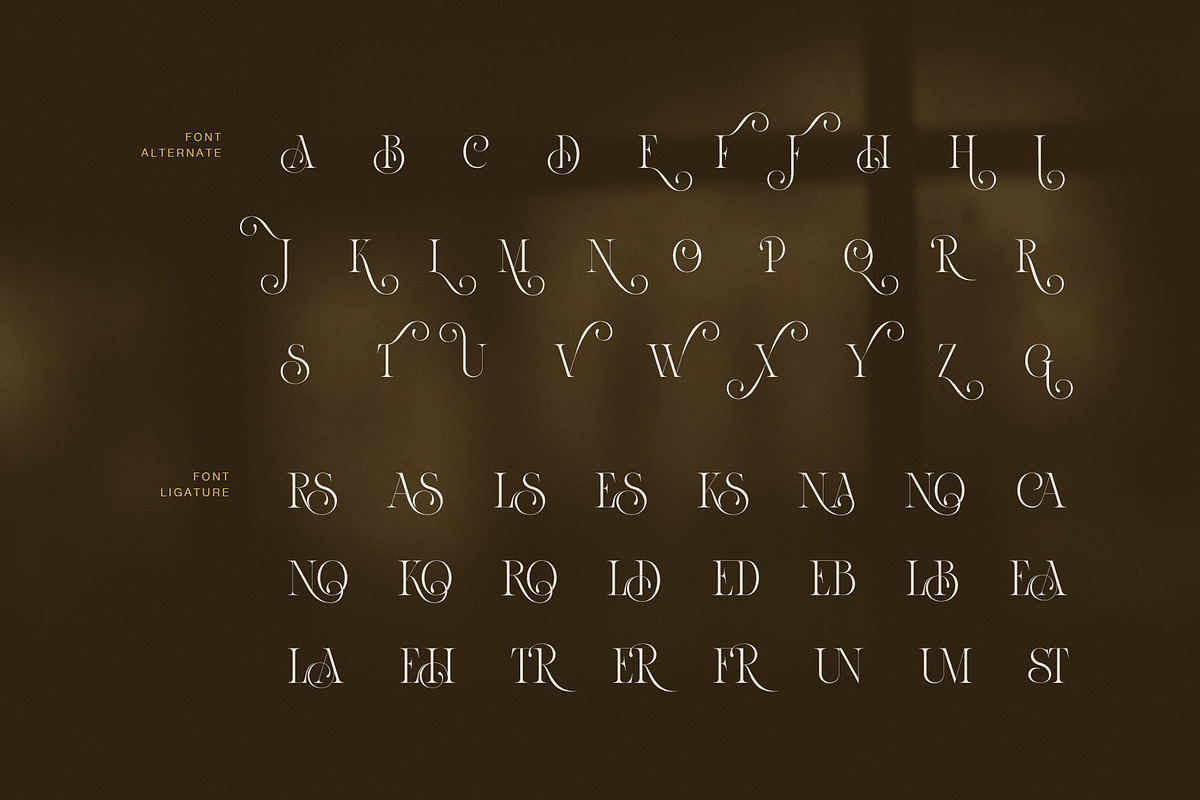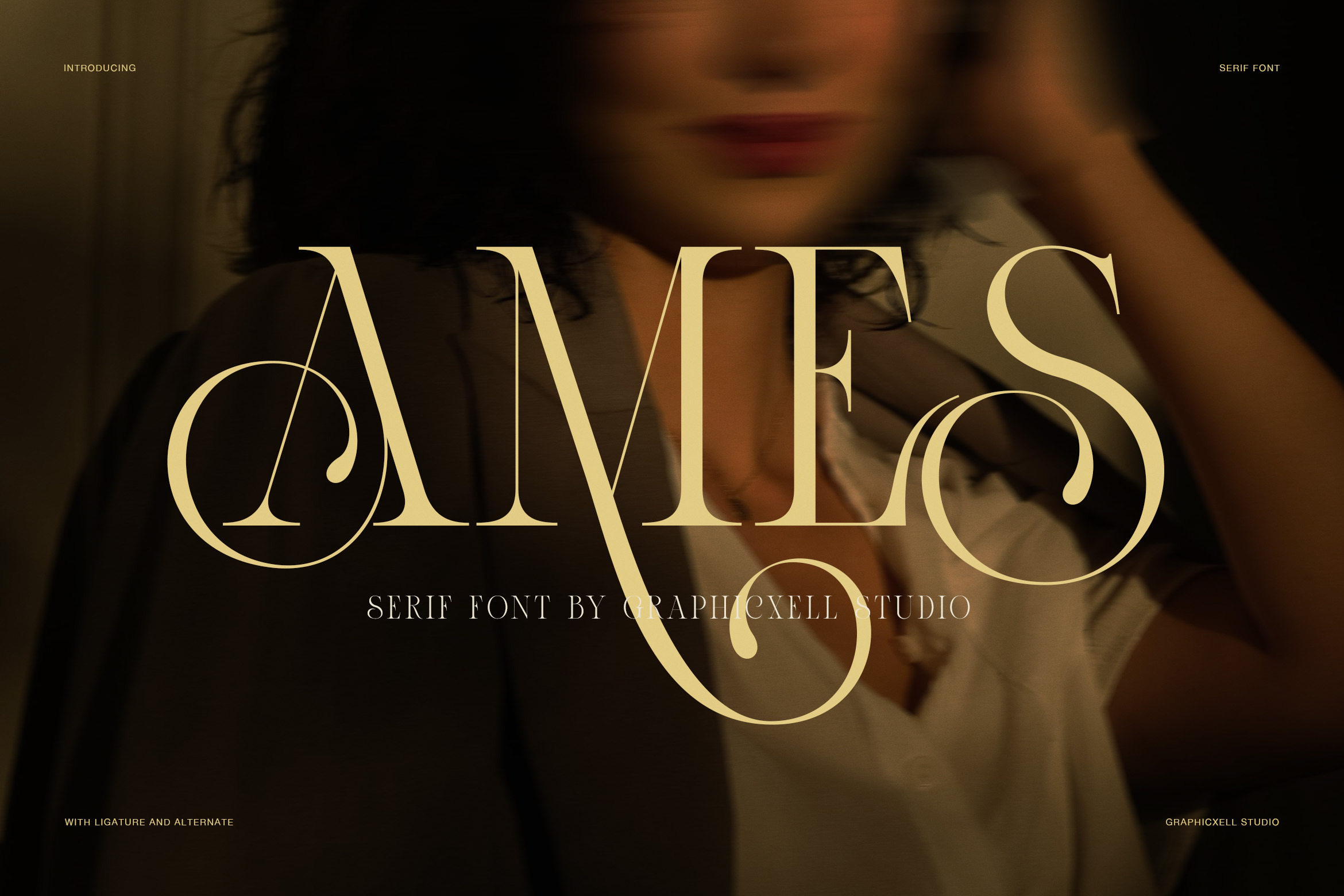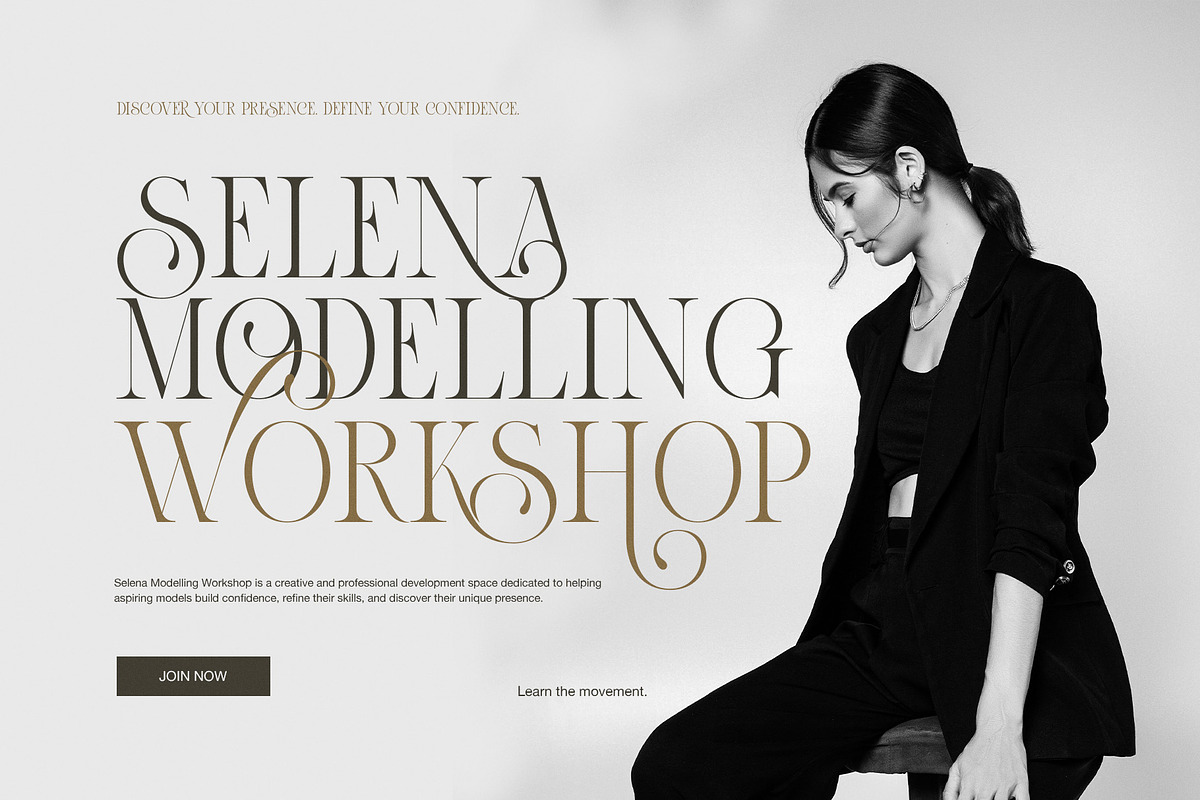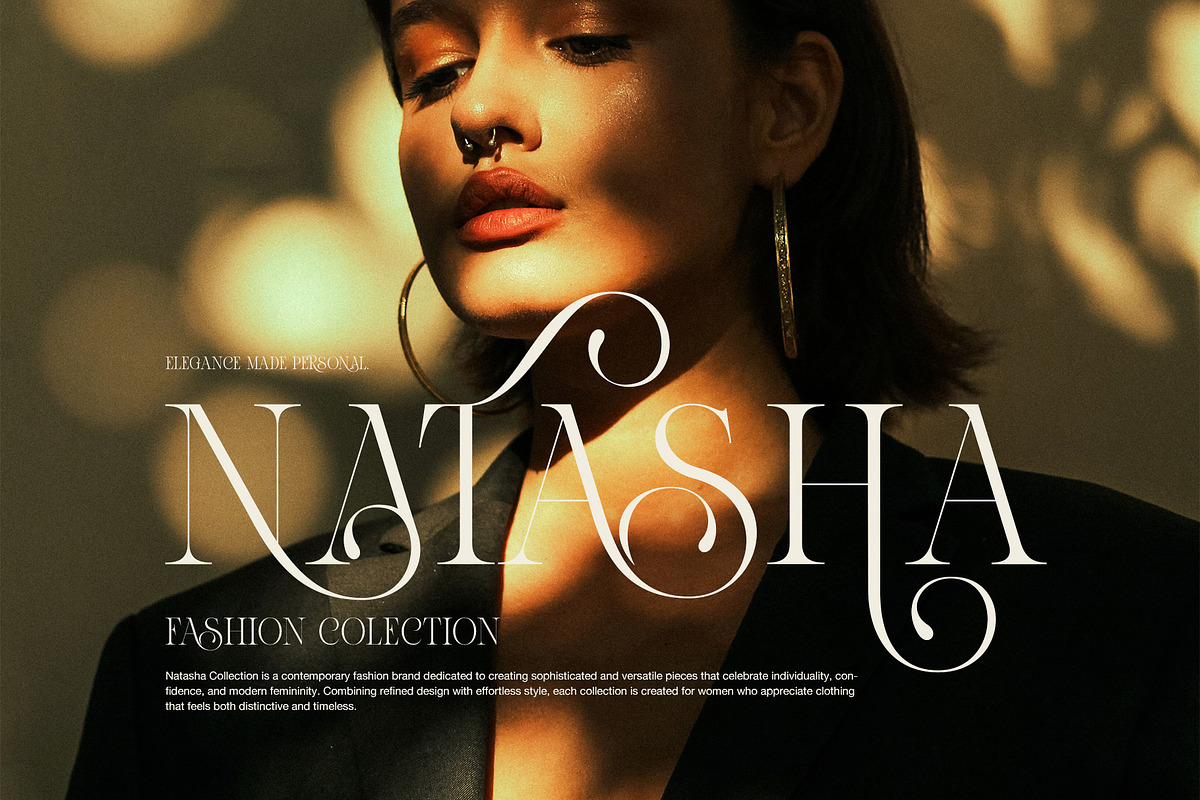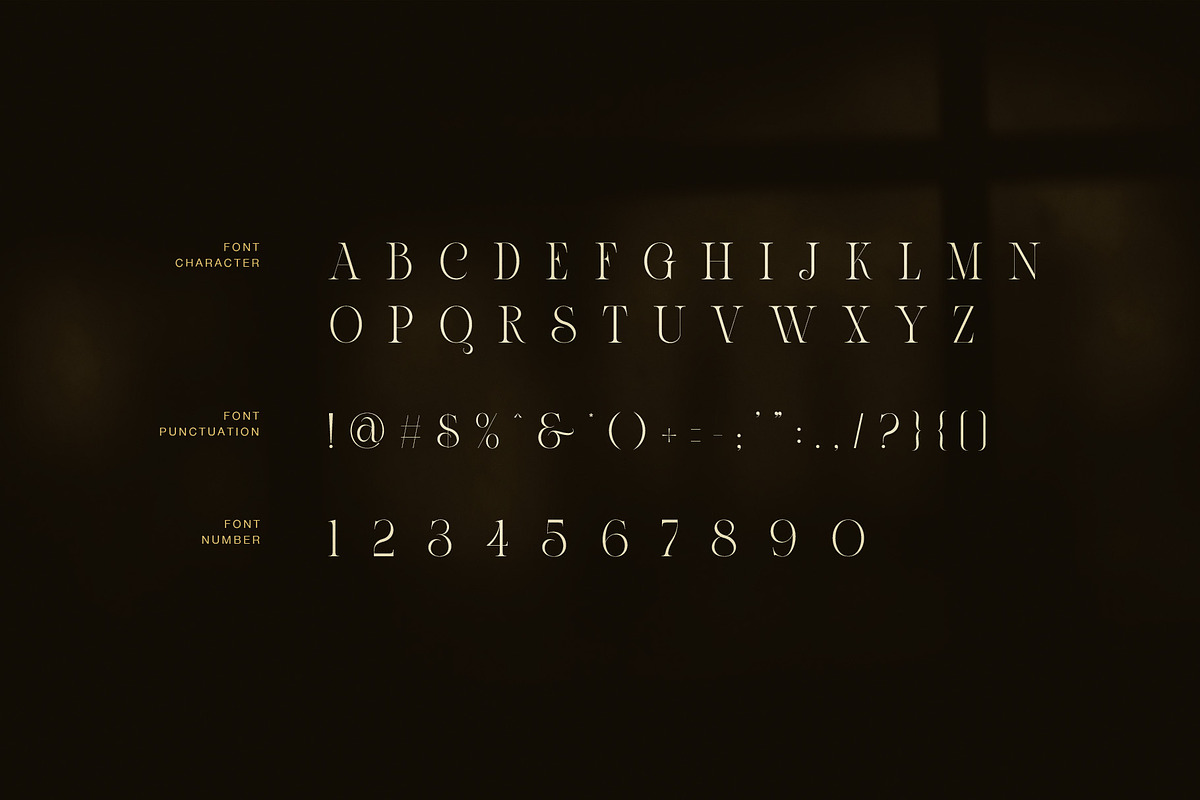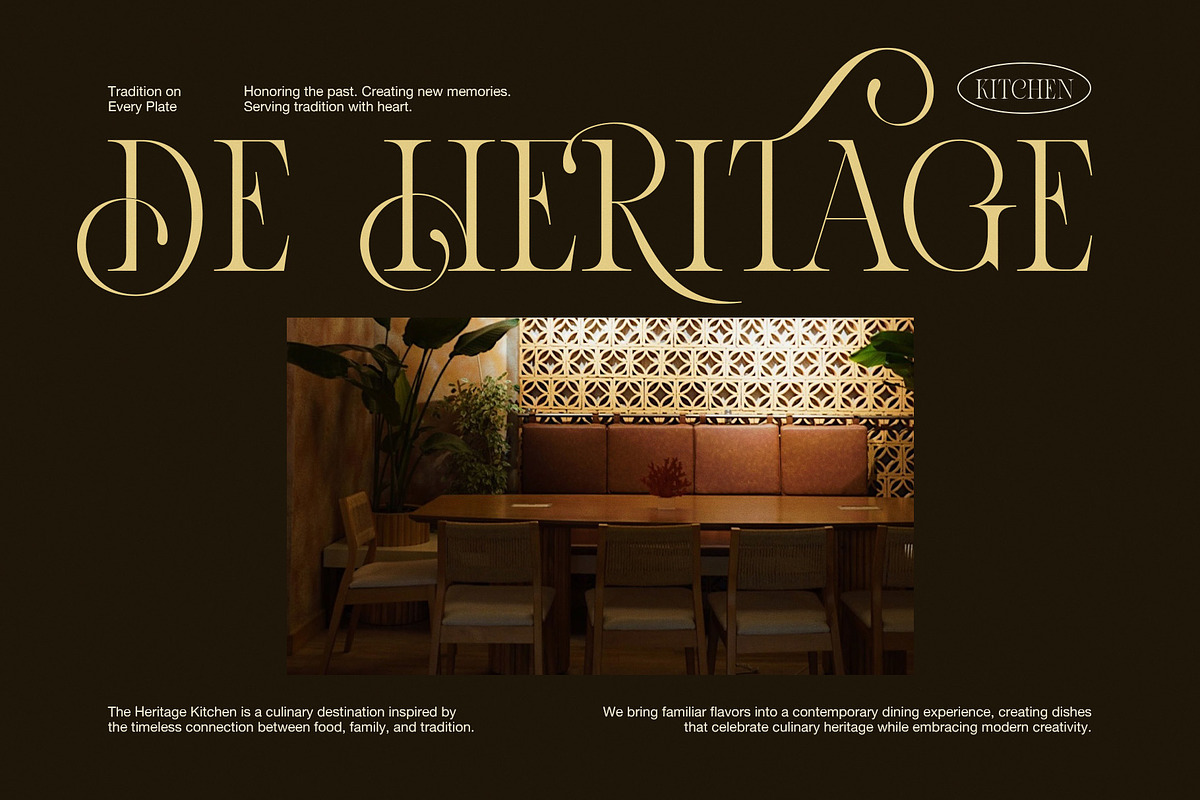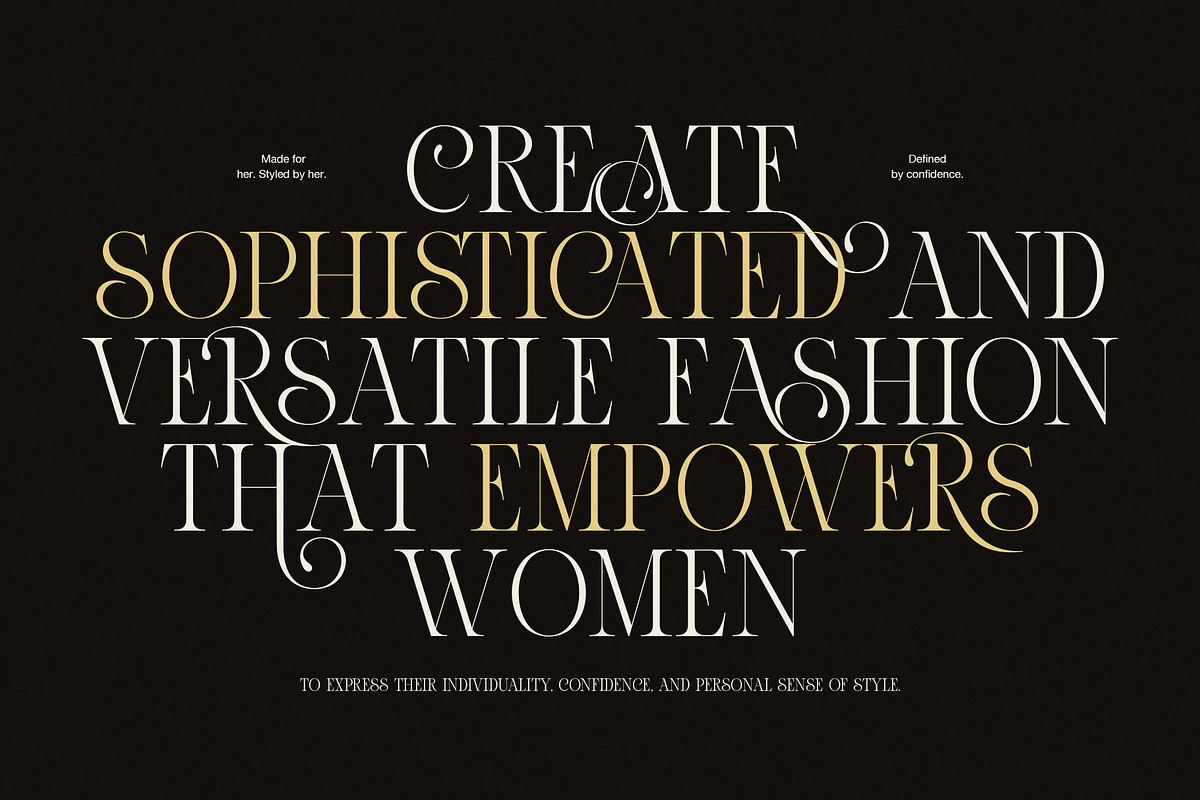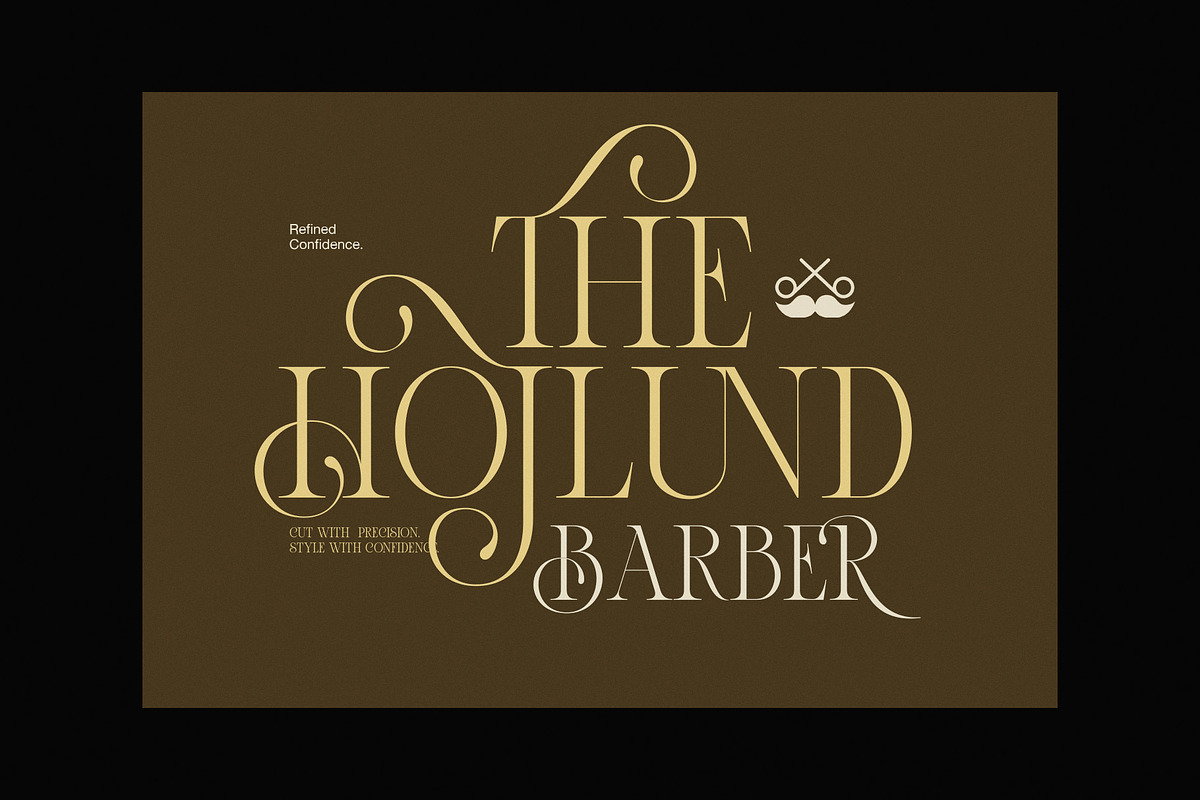
Ames uxury Serif Font
Ames is a luxury high contrast serif font created for refined fashion, beauty, and editorial design. Its tall proportions, sharp contrast, and delicate hairlines give every word a polished look. At the same time, its elegant curves add a softer touch for modern feminine branding.
Designed as a display serif, Ames is made to stand out at larger sizes. Its strong vertical strokes create clear visual presence, while thin details keep the style light and graceful. Therefore, it works especially well for logos, headlines, magazine covers, posters, and premium brand identities.
Ames includes decorative alternate characters that bring personality to selected letters. These swashes can extend above, below, or around a word, creating a distinctive signature effect. As a result, designers can create custom-looking wordmarks while keeping the refined structure of the main typeface.
The font also features elegant ligatures. These combinations create smoother letter connections and add subtle detail to display typography. Meanwhile, the standard characters offer a cleaner option for minimal layouts.
Fashion and beauty branding
Luxury logos and wordmarks
Editorial and magazine design
Wedding invitations and stationery
Boutique and lifestyle branding
Beauty packaging and product labels
Posters and advertising campaigns
Restaurant and hospitality branding
Personal monograms
Ames has a strong fashion character, yet it can move beyond fashion into lifestyle and luxury projects. Likewise, its refined forms pair well with photography, product imagery, minimal layouts, and dark backgrounds. This makes the font useful for classic creative directions.
For branding work, Ames can create an elegant first impression. Furthermore, its alternate glyphs let designers add an expressive finish to important letters. The result is typography that feels carefully styled rather than overly decorated.
Whether you are designing a fashion label, beauty brand, luxury product, editorial campaign, or boutique identity, Ames brings a sophisticated visual voice. Its high contrast, alternates, and ligatures support distinctive display typography.
Ames is made for creatives who want a modern luxury serif with confidence, elegance, and a strong editorial character.